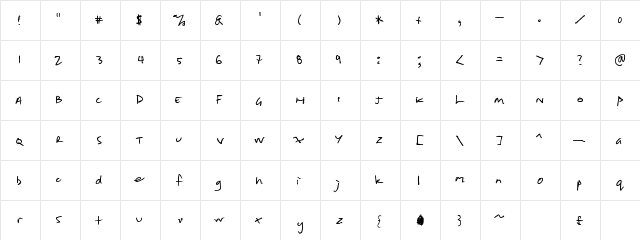
Shopping List Regular
Design Context for Shopping List Typeface
Shopping List is a composed and adaptable typeface that performs quietly and consistently across a wide range of design contexts.